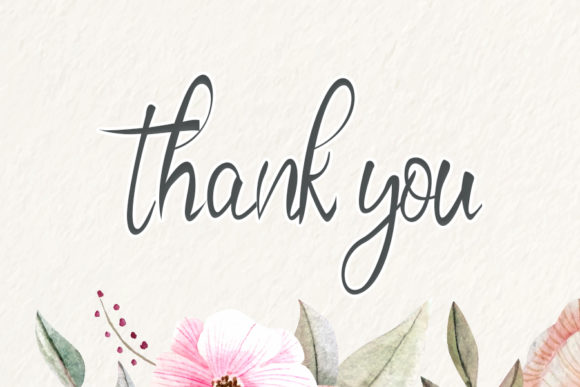
Introduction to Rellaiya Font
Have you ever stumbled upon a font that makes you stop in your tracks and say, “Ah, this is the one”? For designers, finding that perfect font can be a game-changer. It’s the difference between a decent design and a stunning one. And that’s exactly what the Rellaiya Font offers – a sweet and elegant calligraphy font that will elevate your creative projects to the next level.
Imagine you’re working on a design project and you need a font that exudes sophistication and refinement. You’re searching for a font that’s not only high quality but also versatile enough to suit various design needs. That’s where the Rellaiya Font comes in – a free download that’s perfect for designers who want to add a touch of elegance to their work. With its distinct and well-rounded letters, this font is a real work of art that’s sure to impress.
Key Features of Rellaiya Font
- High-quality design resource for creative projects, perfect for designers and artists.
- Features a unique, modern design with a transparent background, ideal for backgrounds and overlays.
- Perfect for use in digital design, graphic design, and other creative projects where a modern, high-quality font is required.
Honest Review: Rellaiya Font
I recently stumbled upon the Rellaiya Font while searching for a unique design resource to elevate my creative project. I’m excited to share my honest review with you.
What works well: ✨ The Rellaiya Font is available for free download, which is a huge plus for designers on a budget. The font itself is high quality and has a beautiful, elegant feel to it. I particularly love the transparent background, which makes it easy to combine with other design elements. The font is also highly customizable, making it perfect for designers who like to experiment.
Overall, I’m really impressed with the Rellaiya Font. It’s a great addition to any designer’s toolkit, and I’ve already used it in several of my creative projects. If you’re looking for a high-quality, free design resource, I would definitely recommend checking it out.
- Customizable
How to Use Rellaiya Font
Introduction to Rellaiya Font
The Rellaiya Font is a high-quality design resource that offers a unique and creative touch to your projects. With its transparent background, it’s perfect for designers who want to add a professional and stylish look to their work.
Getting the Most Out of Rellaiya Font
To get the most out of the Rellaiya Font, try the following tips:
- Experiment with different font sizes and styles to create a unique look.
- Combine the Rellaiya Font with other design elements, such as images and graphics.
- Use the font in creative projects, such as logos, business cards, and social media graphics.
Common Use Cases for Rellaiya Font
The Rellaiya Font is perfect for a variety of design projects, including:
- Logos and branding materials.
- Business cards and letterheads.
- Social media graphics and ads.
- Presentations and documents.